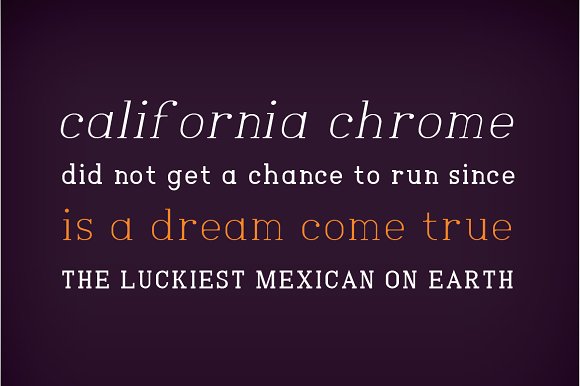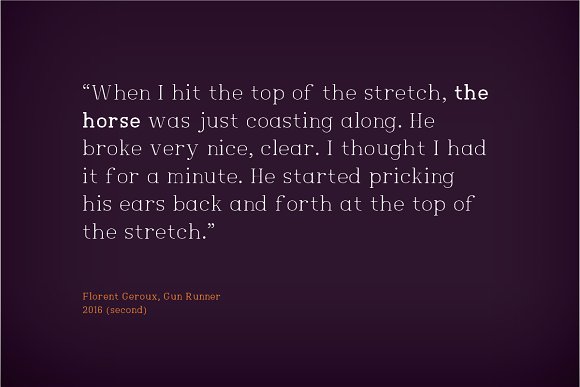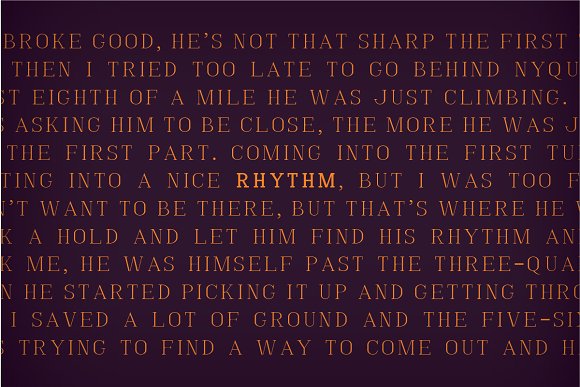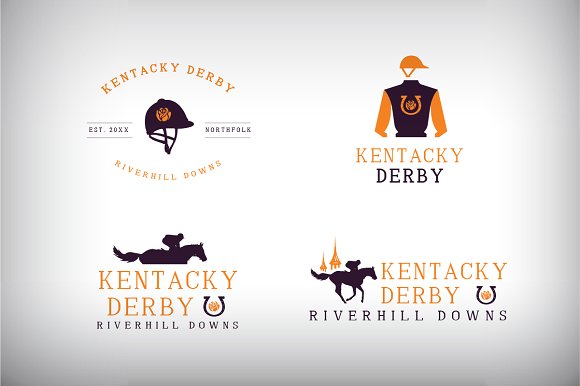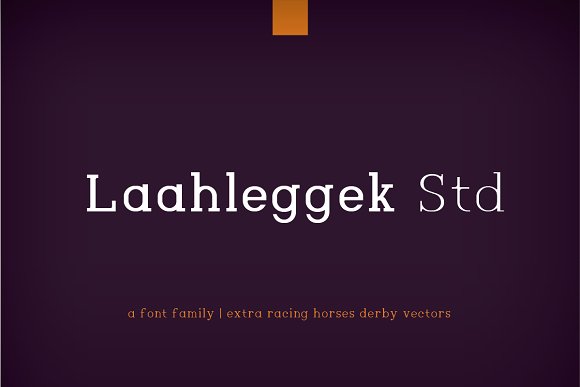
Laahleggek Font
Inspired and themed by Kentucky Derby Race Horse event, Laahleggek Std is serif family, have confident look that will perfect for corporate voices, blogs, corporate typography, packaging and editorial. And yes even only with standard feature, Laahleggek gonna able to perform well in almost any situation.